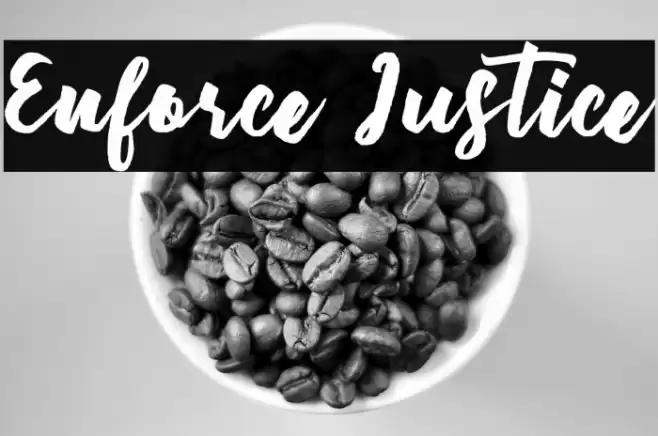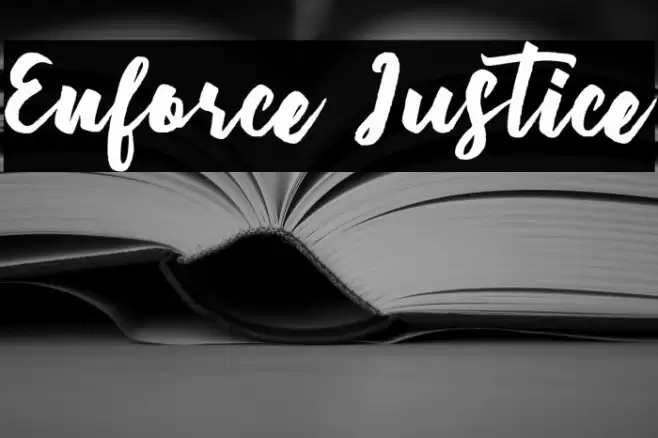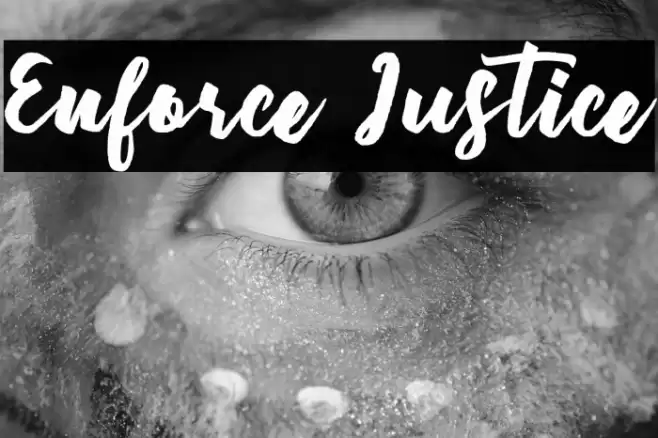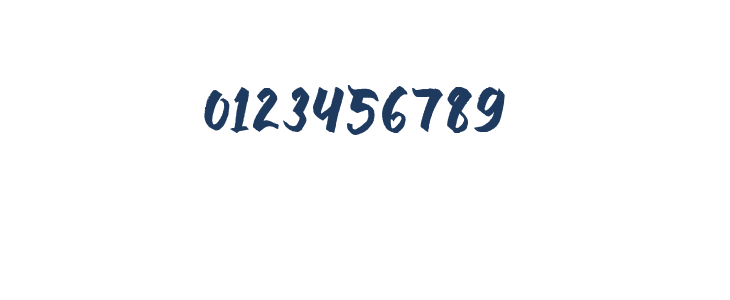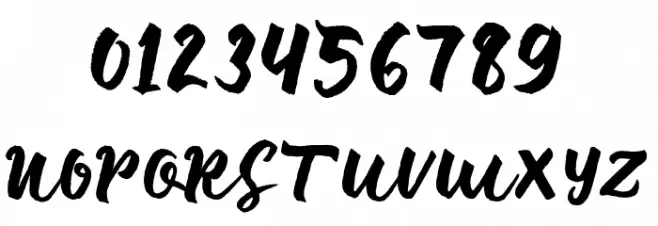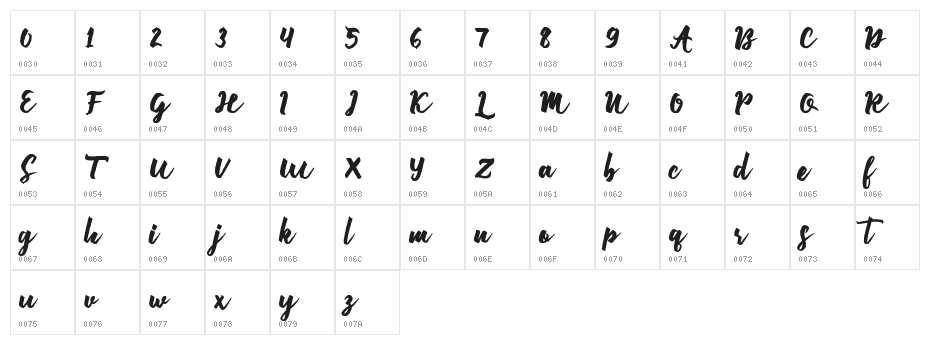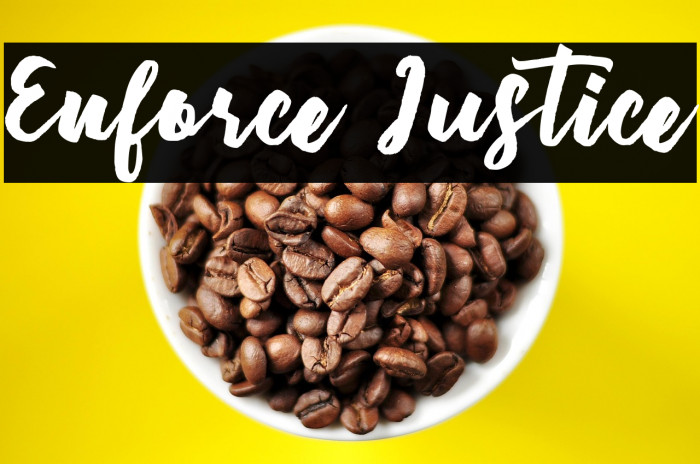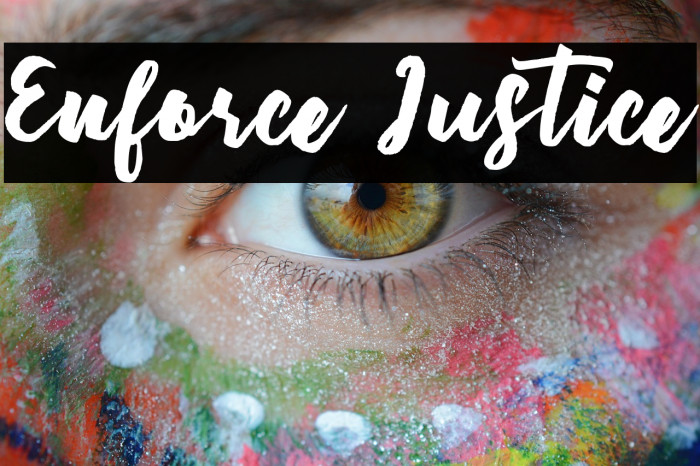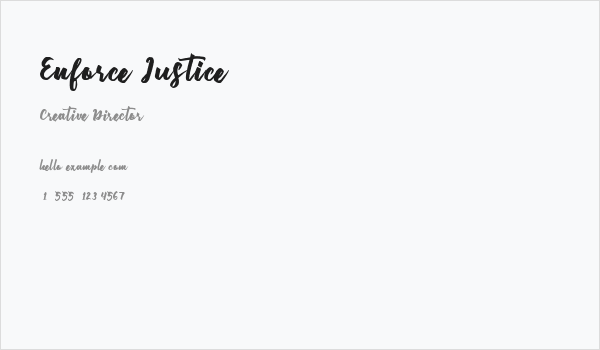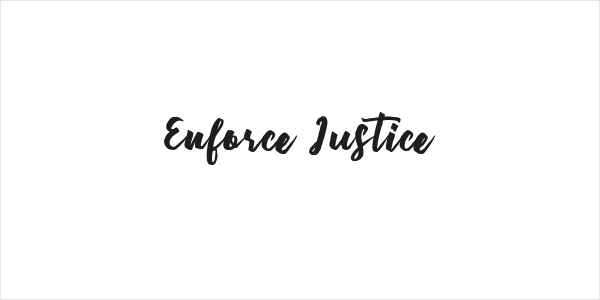
Enforce Justice Font
Enforce Justice Description
This font features a bold, expressive script style with a hand-drawn appearance. The letters are connected, creating a fluid and dynamic look that is both elegant and casual. The strokes are thick and consistent, giving the font a strong presence. The uppercase letters are slightly larger and more pronounced, while the lowercase letters maintain a smooth flow. The numbers are equally bold, matching the overall aesthetic of the alphabet. This font is ideal for projects that require a personal touch, such as invitations, greeting cards, or branding materials. Its unique style makes it stand out, adding a creative flair to any design.
A bold, expressive script font with a hand-drawn, connected style from Regular fonts.
- Font: Enforce Justice
- Proposed Projects: Ideal for invitations, greeting cards, branding, and creative design projects.
- Use Case: Logos, Headlines, Decorative text